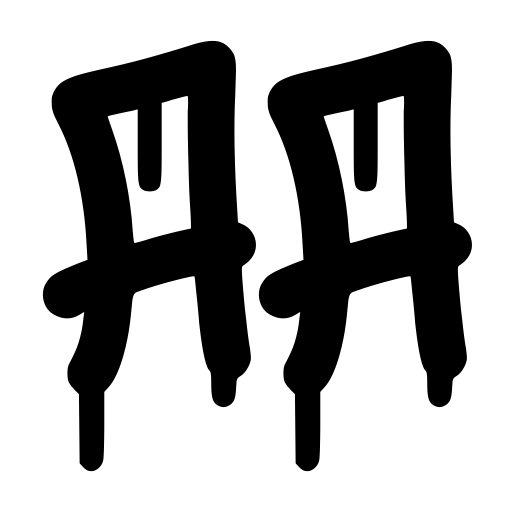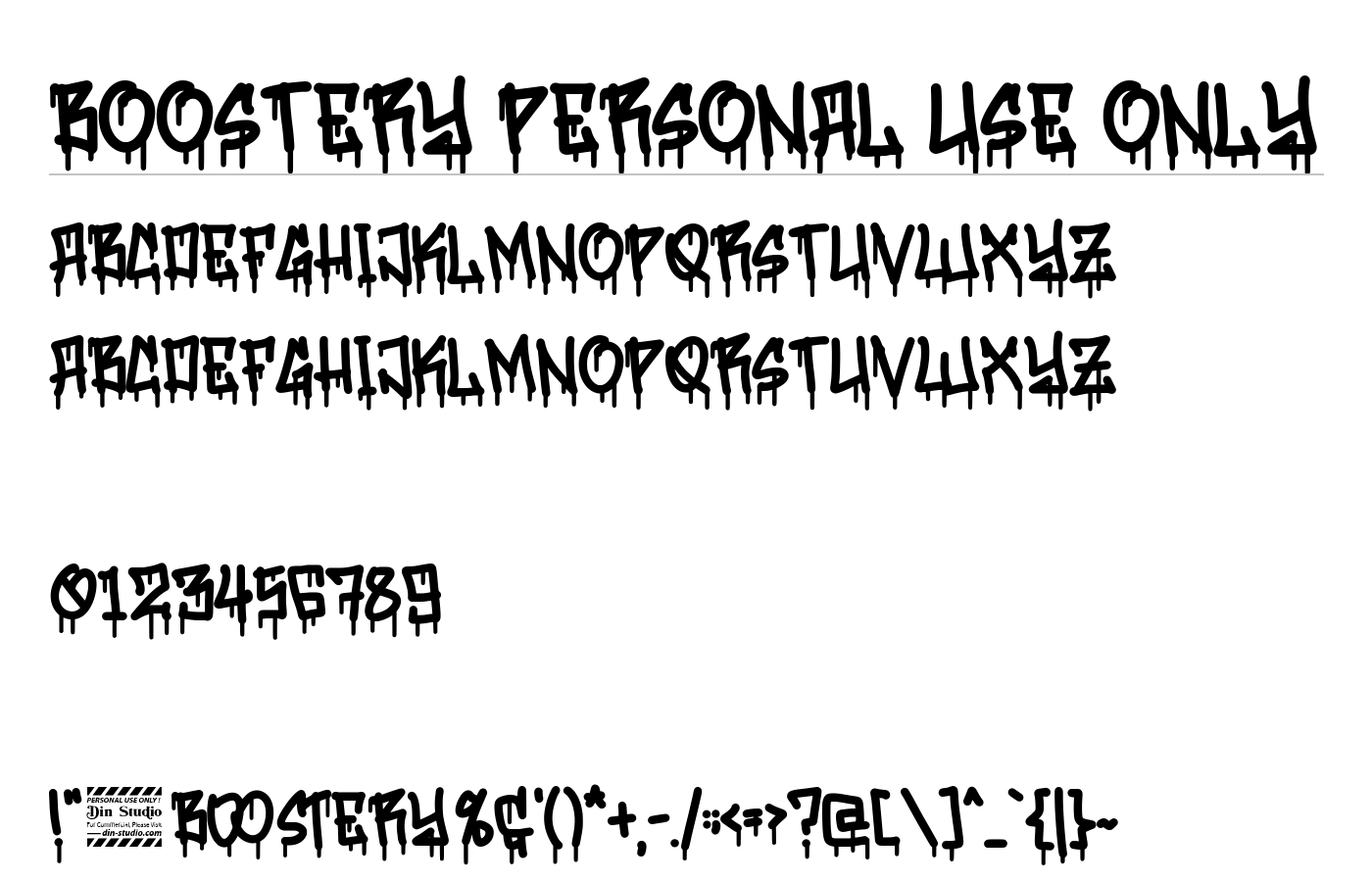
Boostery Personal Use Only is a bold and edgy graffiti-style font that features irregular, dripping strokes, giving it a raw and street-art vibe. Its playful yet rebellious character makes it perfect for urban-themed designs, posters, and creative projects that want to capture a youthful, energetic spirit. This font works best in display settings where its unique style can stand out and grab attention.
Boostery Personal Use Only Font
About Boostery Personal Use Only Font
| Font family | Boostery Personal Use Only Font |